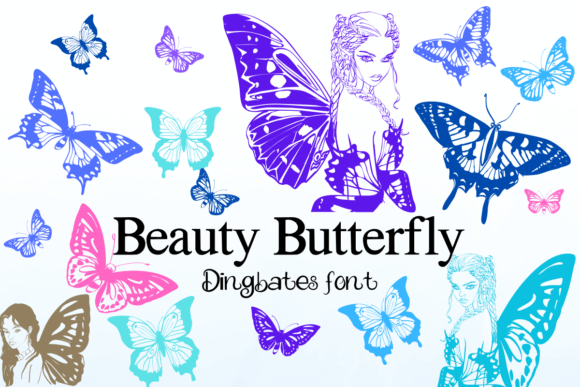
Introduction to Beauty Butterfly Font
Beauty Butterfly is a dingbat font featuring a collection of butterfly-themed designs.
Instead of traditional letters and numbers, this font includes various butterfly shapes and patterns, making it perfect for adding decorative elements to projects It’s great for creating unique and eye-catching visuals in crafts, invitations, and more.
Key Features of Beauty Butterfly Font
Why Choose Beauty Butterfly Font?
Beauty Butterfly Font offers exceptional quality and versatility, making it a valuable addition to your design toolkit. Whether you’re creating for personal projects or commercial use, Beauty Butterfly Font delivers professional results.